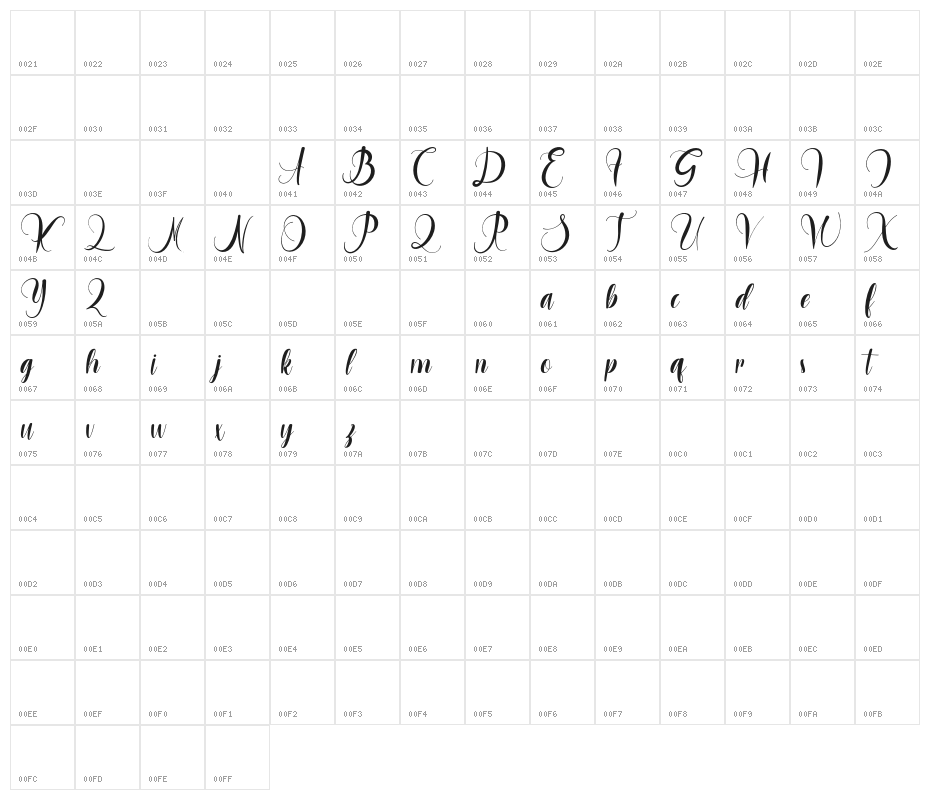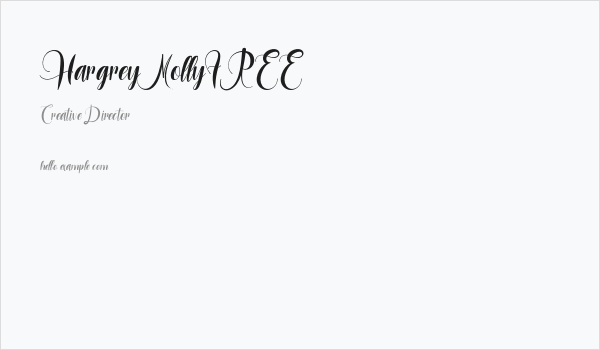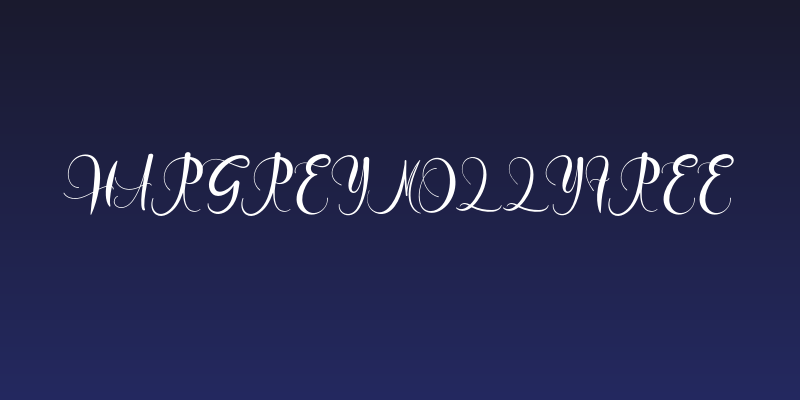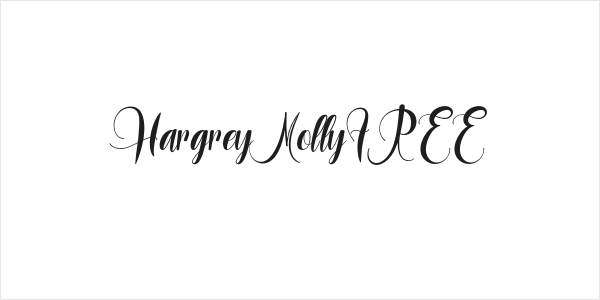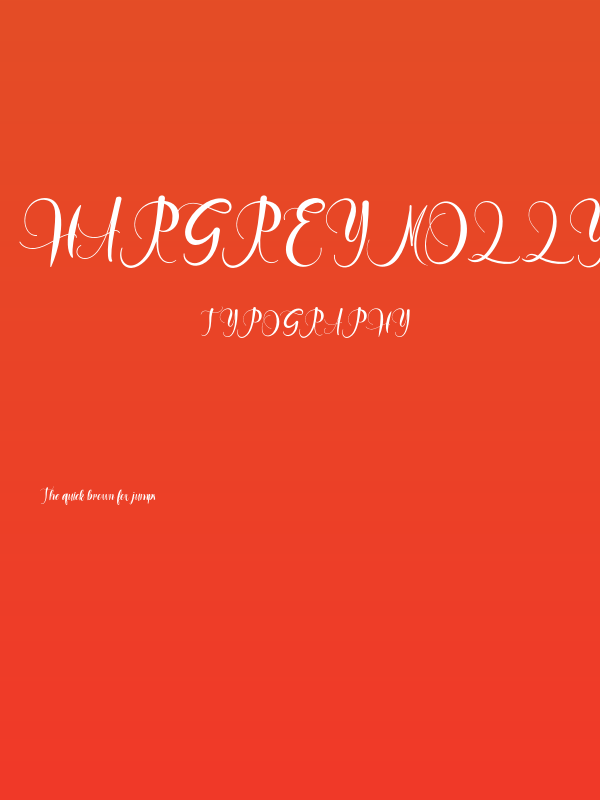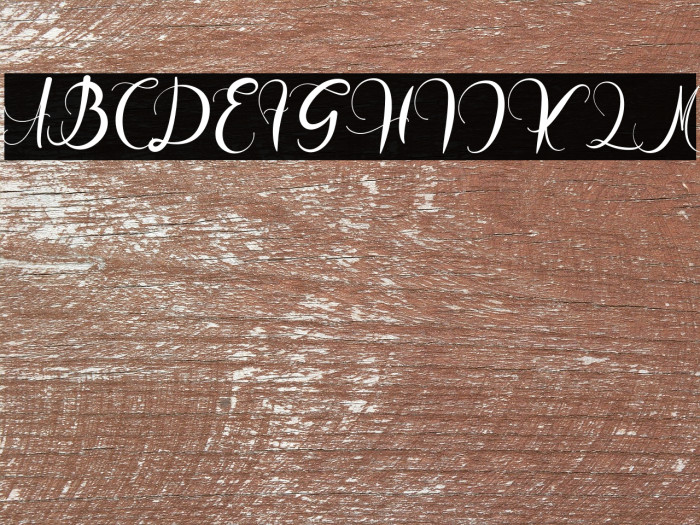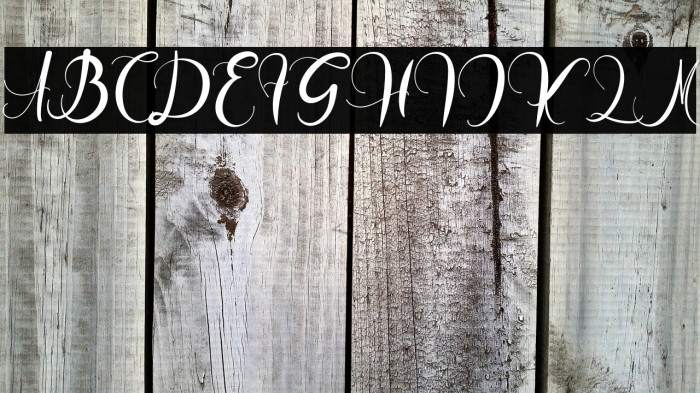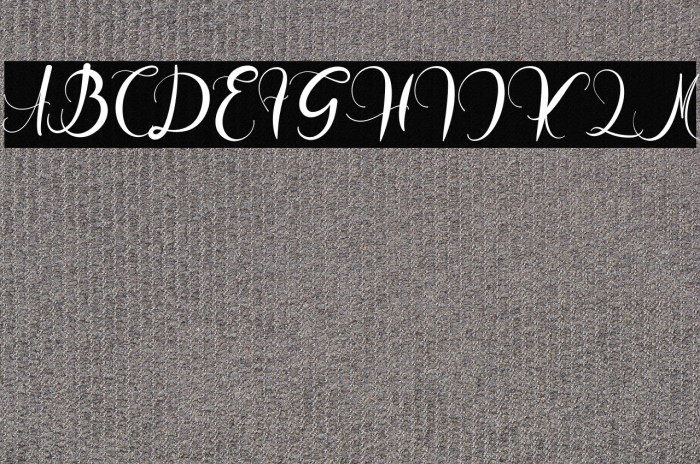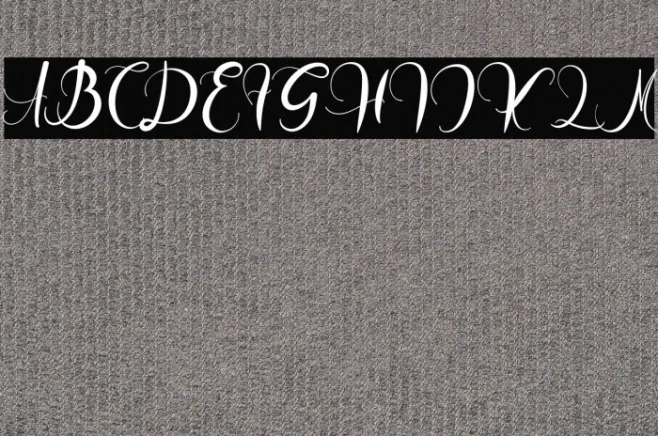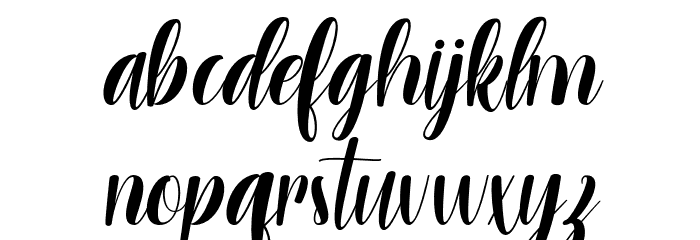
HargreyMollyFREE Font
HargreyMollyFREE Description
This font features an elegant and flowing script style with a modern touch. The uppercase letters are characterized by their sweeping curves and delicate flourishes, giving them a sophisticated appearance. The lowercase letters maintain a consistent flow, with smooth transitions and rounded forms that enhance readability. The overall design is both stylish and versatile, making it suitable for a variety of creative projects. The font's bold strokes and high contrast between thick and thin lines add a dynamic quality, while the spacing between characters is balanced to ensure clarity.
| Proposed Projects | Ideal for wedding invitations, branding, logos, and elegant packaging designs. |